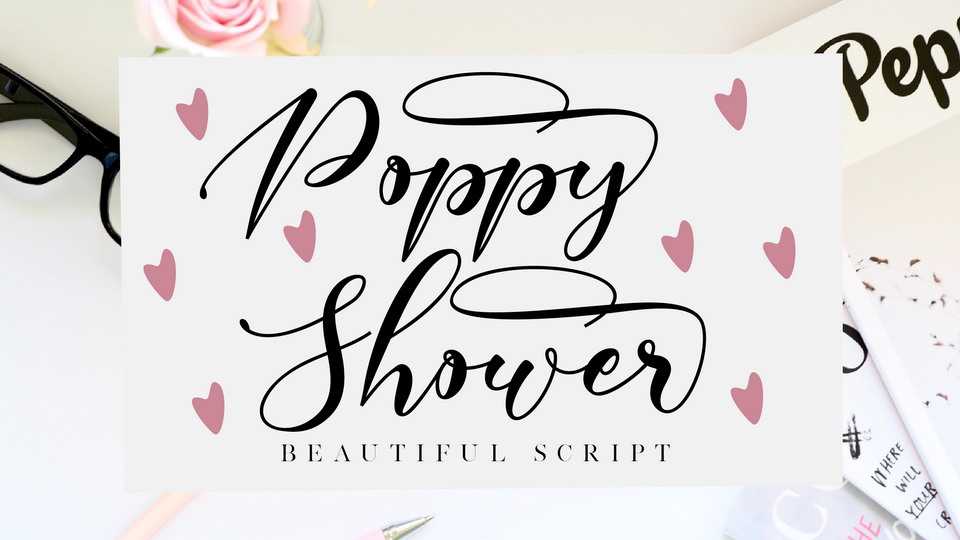
Download Poppy Shower font, a fancy modern calligraphy script with a classy and elegant look! Poppy Shower is perfect for any design that needs an authentic touch.
Designer: Nissa Studio